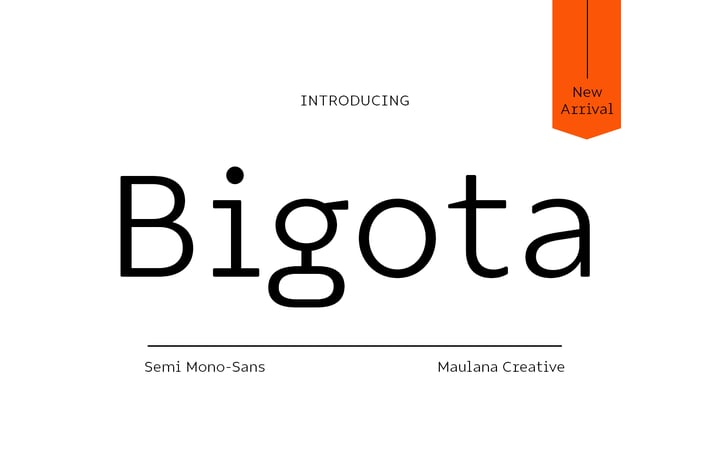
Bigota Mono Sans Font
Bigota is a simply semi mono - sans font. With light stroke, fun character with a bit of ligatures and alternates. To give you an extra creative work. Bigota font support multilingual more than 100+ language. This font is good for logo design, Social media, Movie Titles, Books Titles, a short text even a long text letter and good for your secondary text font with sans or serif. Make a stunning work with Bigota font.